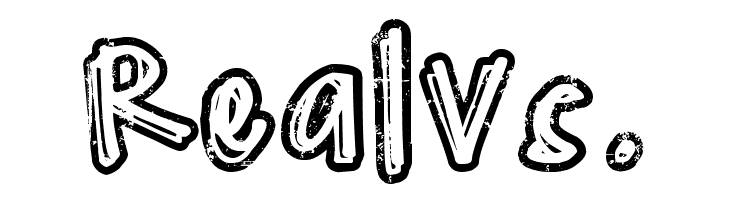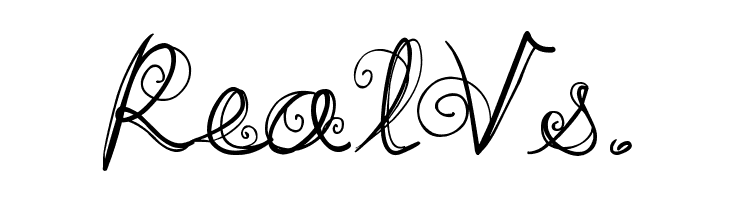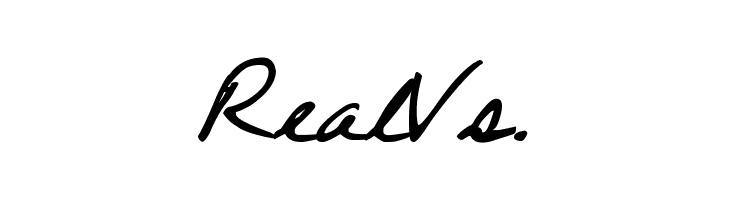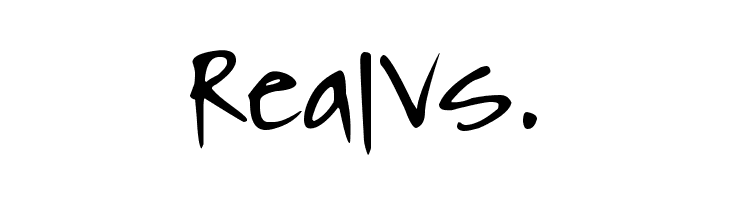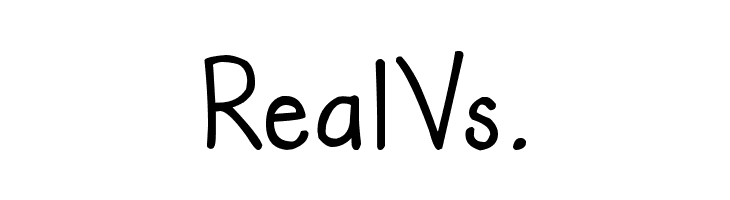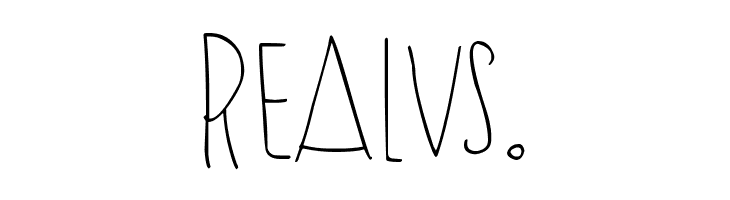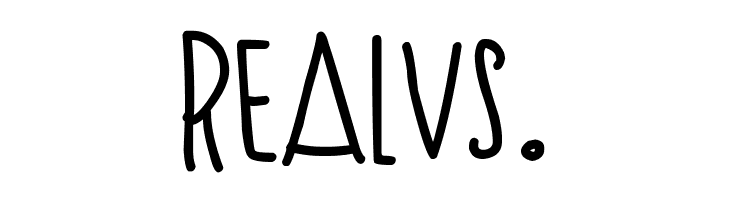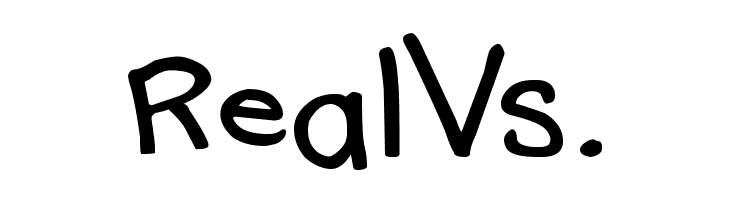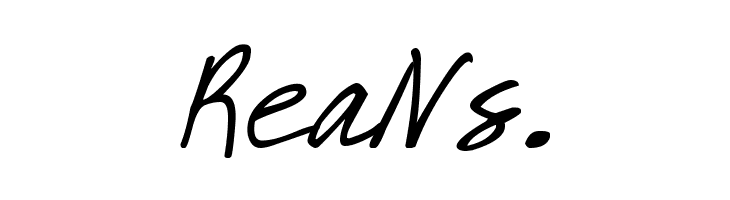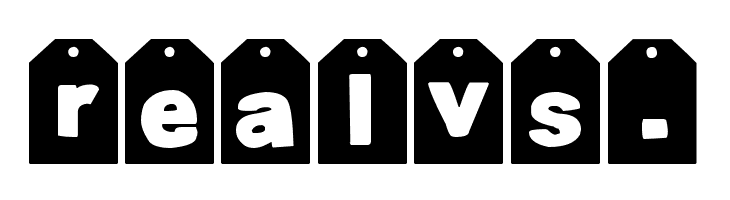
A playful, hand-drawn font with tall, narrow letters and a whimsical style.
A playful, handwritten font with bold, rounded strokes and a lively, informal style.
A playful, rounded font with smooth curves and uniform thickness.
A decorative script font with swirling, whimsical embellishments.
A bold, playful font with characters enclosed in tag-like shapes.
A bold, decorative font with characters enclosed in tag-like shapes.
A playful, outlined font with tall, narrow characters and rounded edges.
A playful handwritten font with a casual and friendly style.
A playful, casual handwritten font with a natural, creative flair.
A playful, handwritten font with tall, narrow letters and rounded edges.
A playful, handwritten font with a chalkboard style.
A playful, bold, and hollow font with whimsical, outlined characters.
A playful, hand-drawn font with bold, irregular strokes.
A playful, handwritten font with tall, narrow letters and a casual style.
A playful, handwritten font with tall, narrow letters and smooth curves.
A casual, expressive handwritten font with fluid, connected strokes.
A playful, informal handwritten font with smooth, rounded strokes.
A whimsical, hand-drawn script font with playful loops and curves.
A playful, bold font with thick, rounded strokes and a whimsical style.
A playful, decorative font with polka dots and stripes, perfect for creative projects.
A whimsical, hand-drawn font with a playful, treasure map theme.
A playful, handwritten font with bold, rounded strokes and a casual style.
A dot matrix font inspired by vintage digital scoreboards.
A playful, handwritten font with outlined characters and a whimsical style.
A bold, hand-drawn font with a vintage, textured style.
A bold, distressed font with a vintage, handcrafted appearance.
A playful, handwritten font with bold strokes and a casual, energetic style.
A playful, handwritten font with fluid, dynamic strokes and a casual style.
A playful, casual handwritten font with a friendly and approachable style.
A playful, distressed font with a hand-drawn, textured appearance.
A playful, bold handwritten font with rounded, consistent strokes.